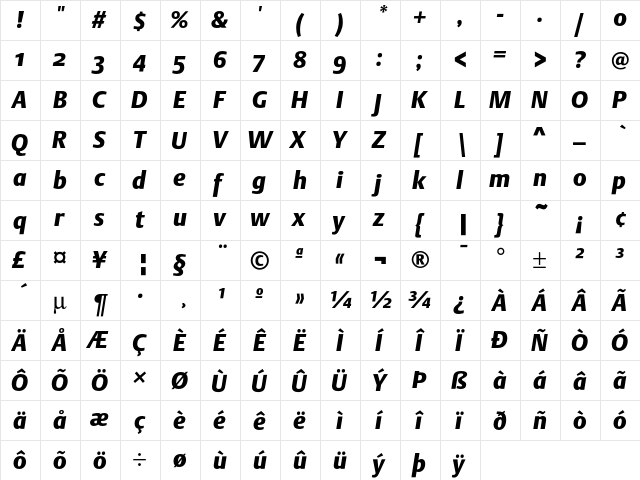
DTLArgoST BlackItalic
Design Context for DTLArgoST Typeface
DTLArgoST is a composed and adaptable typeface that performs quietly and consistently across a wide range of design contexts. Its italic angle brings a sense of urgency and motion to the letterforms.
Pro Tip: Use DTLArgoST for emphasis, pull quotes, and subheadings where its slanted energy can add rhythm to the layout.